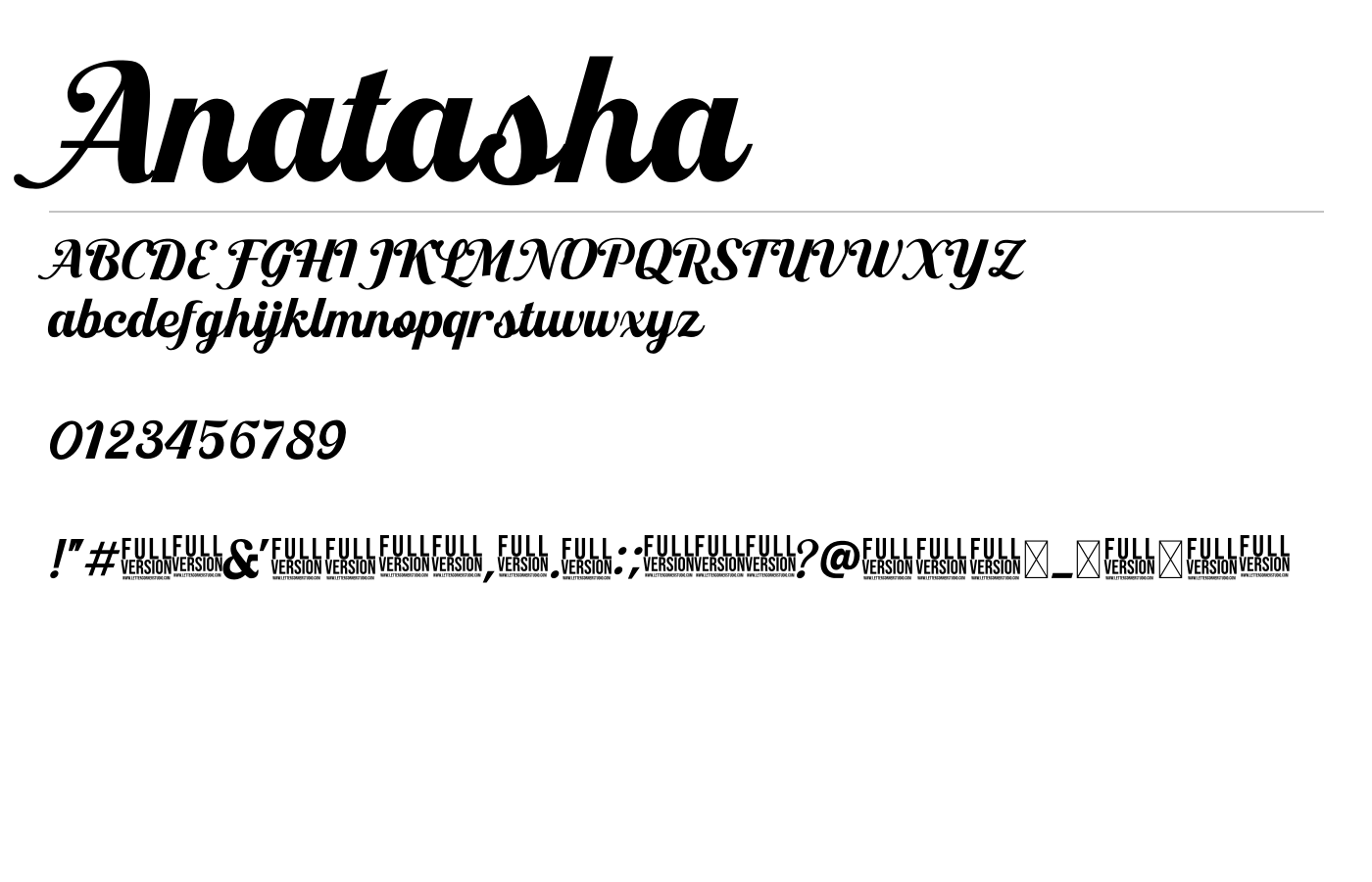
Anatasha is a bold, elegant script font with a vintage charm, featuring smooth, flowing strokes and distinctive rounded terminals. Its high contrast and slightly condensed letterforms make it ideal for display use, giving a sophisticated yet approachable feel perfect for logos, invitations, and stylish headlines. This font brings a classic, refined personality to any design seeking a touch of timeless elegance.
Anatasha Font
About Anatasha Font
| Font family | Anatasha Font |
| Designer | Lettercorner Studio |